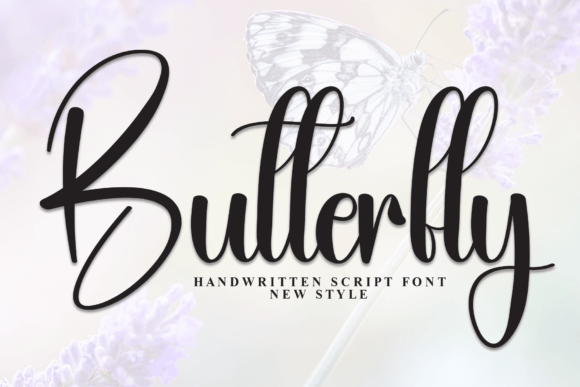
The Butterfly Effect: How a Unique Font Can Transform Your Designs
I’ll never forget the time I was working on a wedding invitation project, and my client asked for a font that was both elegant and playful. I scoured the internet, tried out countless fonts, but nothing seemed quite right. That was until I stumbled upon the Butterfly Font. Its unique, hand-crafted style instantly captured the essence of the event, and my client loved it! From that moment on, I was hooked. In this article, I’ll share with you why I’m so fond of this font, its features, and how you can make the most of it in your designs.
An Honest Review of Butterfly Font
- ✨ Unique and Creative: The Butterfly Font is truly one-of-a-kind. Its stylish letters are perfect for making a statement in any design project.
- ✅ Versatile: Whether you’re working on wall displays, wedding invitations, social media post logos, advertisements, product packaging, or labels, this font fits right in.
While the Butterfly Font is incredibly versatile and user-friendly, there are a few minor considerations to keep in mind:
The Inspiration Behind Butterfly Font
The Butterfly Font was inspired by the delicate beauty of butterflies and the desire to create a font that captures the essence of nature’s elegance. The designer aimed to craft a font that is not only visually stunning but also highly versatile, making it suitable for a wide range of creative projects.